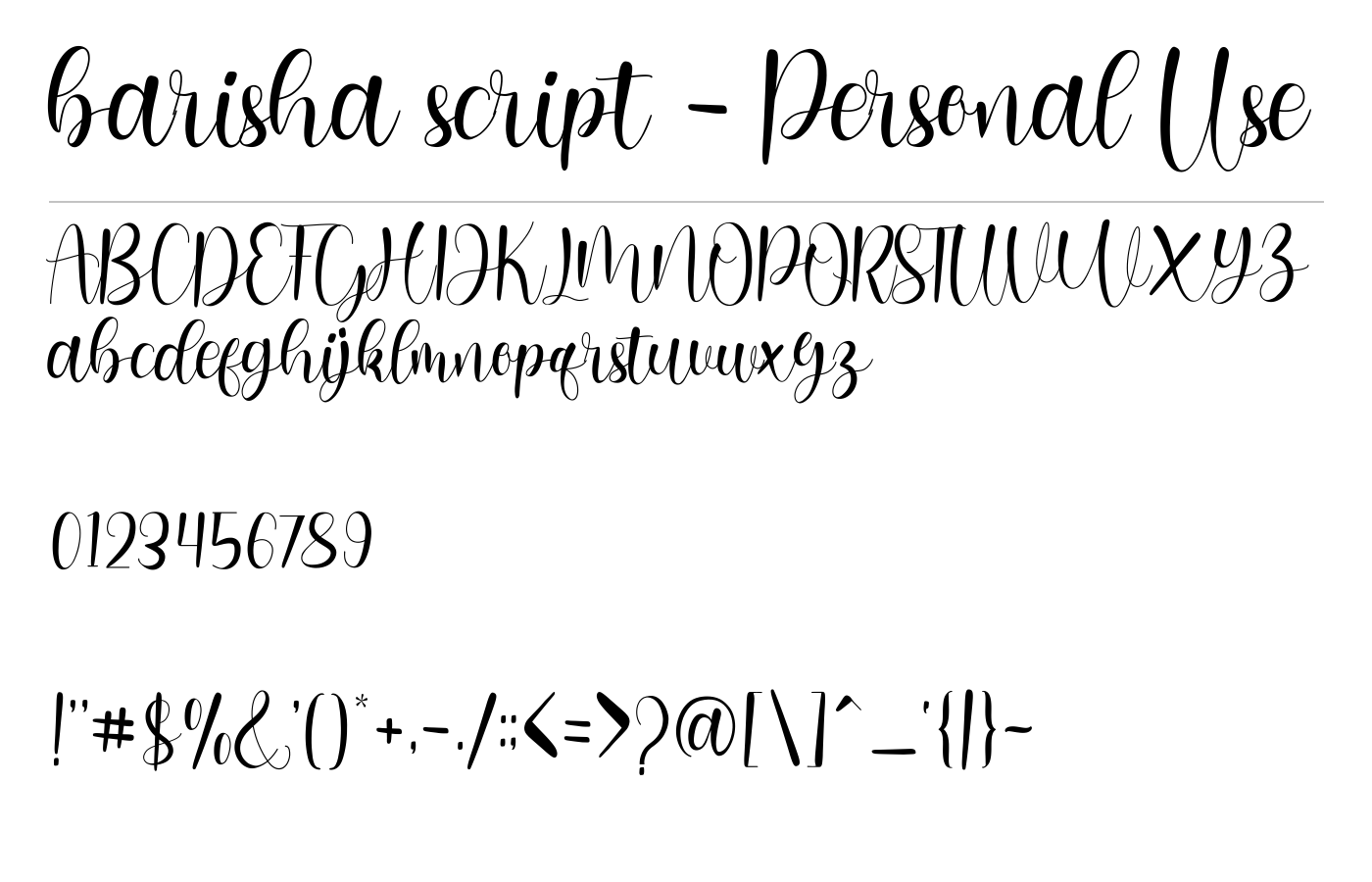
Barisha Script is a delicate and elegant handwritten script font with a light, flowing weight and tall, slender letterforms. It features smooth, curved strokes with subtle contrast and playful, decorative swashes that give it a stylish and romantic feel. Ideal for invitations, branding, and feminine designs, it brings a personal and graceful touch to any creative project.
barisha script - Personal Use Font